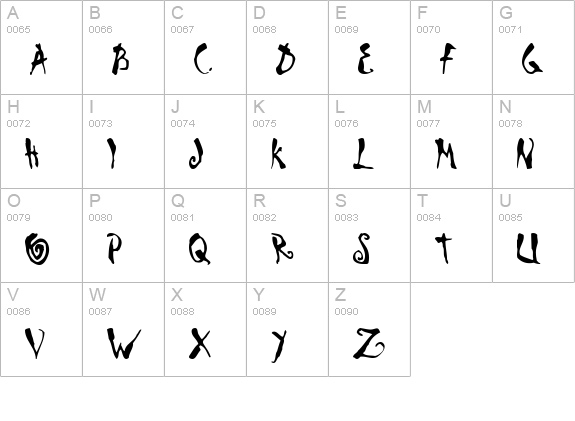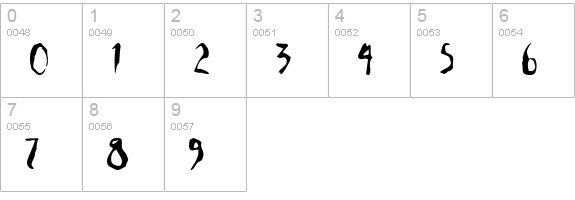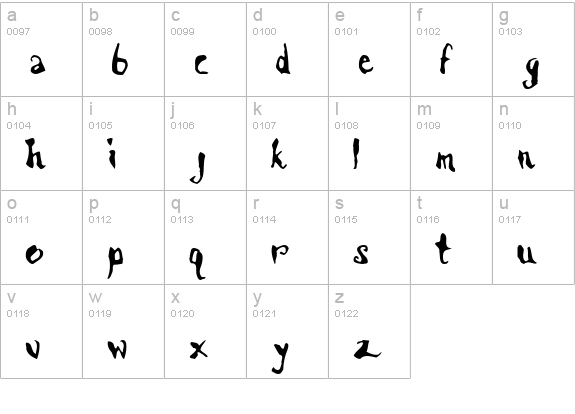
Scrawn Font Details
Introducing Scrawn Font, a stylish and versatile typeface that effortlessly captures attention with its unique and distinctive design. Ideal for adding a touch of individuality to any project, Scrawn Font is the perfect choice for those seeking a font that stands out from the crowd. With its bold and playful strokes, Scrawn Font exudes a sense of creativity and artistic flair. Whether used for logos, headlines, or body text, this font adds a touch of personality and charm, making your designs truly memorable. One of the best features of Scrawn Font is that it is available for free! Yes, you heard it right. You can freely download this exceptional font at FontsMarket.com, your go-to destination for high-quality and unique typefaces. Don't miss this opportunity to enhance your design projects with Scrawn Font's captivating style. Scrawn Font's versatility is another aspect that makes it a must-have for designers and creatives. Its readability makes it suitable for a wide range of applications, from digital platforms to printed materials. Whether you're designing a website, creating a poster, or crafting a social media post, Scrawn Font adapts effortlessly to any medium, ensuring your message is communicated effectively. The attention to detail in Scrawn Font is evident in its carefully crafted letterforms and seamless curves. Each character is meticulously designed to maintain consistency and legibility while adding a touch of whimsy. The result is a font that is both visually appealing and easy to read. Scrawn Font's extensive character set includes uppercase and lowercase letters, numbers, punctuation marks, and special characters, allowing you to fully unleash your creativity and bring your design ideas to life. Its versatility ensures that it can be used in various languages, making it a truly global font. So why wait? Download Scrawn Font today from FontsMarket.com and elevate your designs to new heights. With its captivating style, versatility, and the fact that it is freely available, Scrawn Font is a must-have addition to any designer's toolkit. Embrace the uniqueness and creativity that Scrawn Font brings and watch as your designs captivate and inspire.